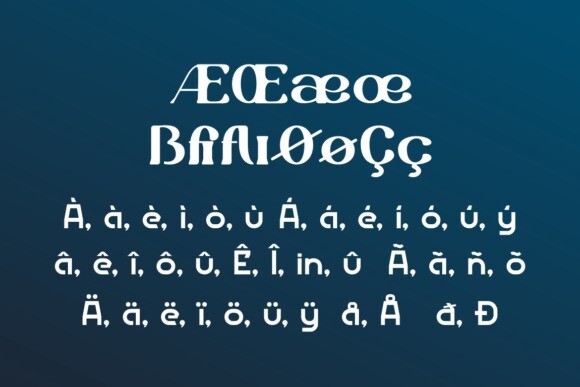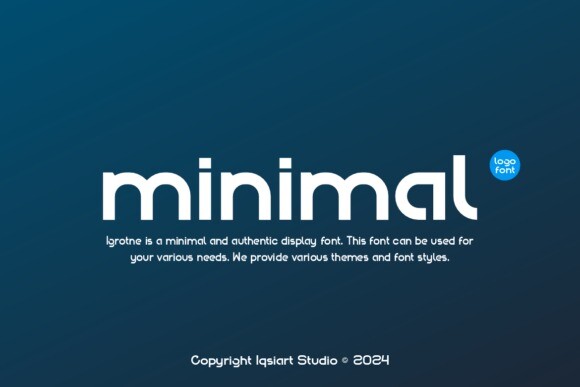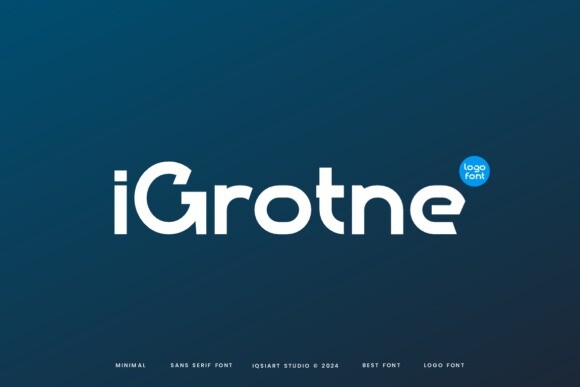
Igrotne Font
Designer: IqsiartStudio
Igrotne Font is a clean and modern sans serif font. It features simple lines and a friendly feel, making it easy to read for any project. Perfect for headlines and body text, it adds a fresh touch to your designs.